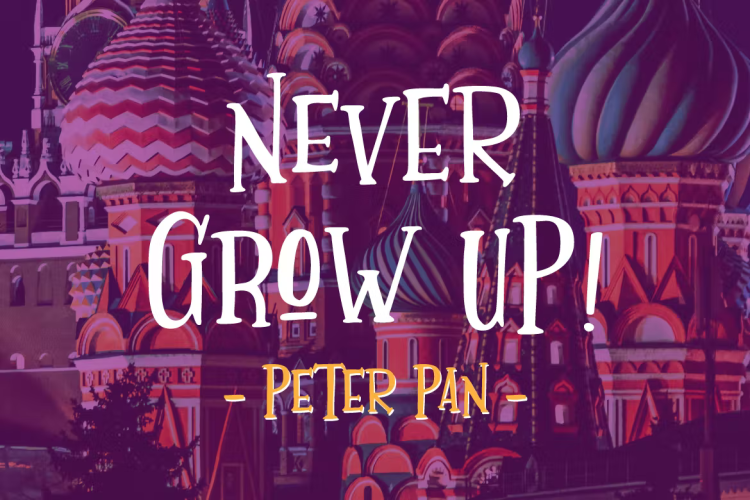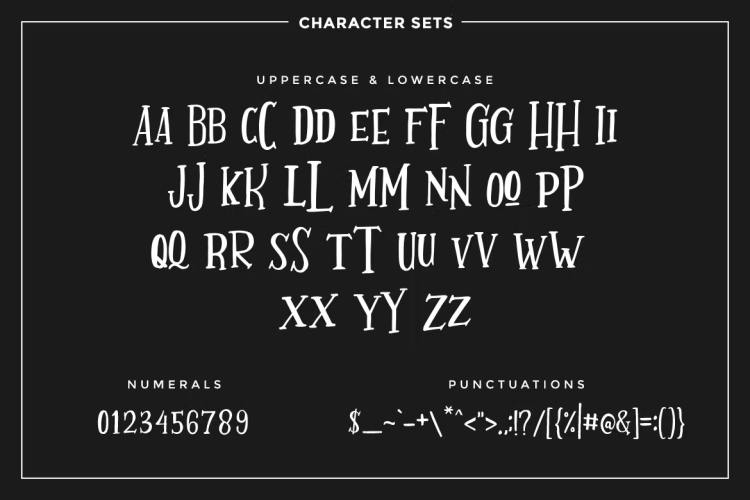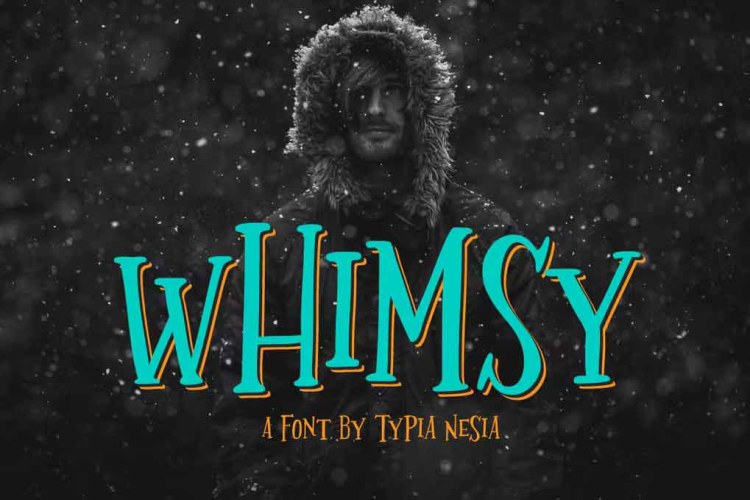
Whimsy Font
Whimsy is a handmade fantasy / whimsical display font. It suitable for titling, display, brand, crafting, quote, t-shirt, poster, packaging, book, cover, cards, invitati…
Whimsy is a handmade fantasy / whimsical display font. It suitable for titling, display, brand, crafting, quote, t-shirt, poster, packaging, book, cover, cards, invitation and more.
Where Whimsy Font works best
Whimsy Font gives long-form text a classic, trustworthy rhythm — ideal for magazine spreads, annual reports and book interiors.
Pair Whimsy Font with generous letter-spacing for wordmarks in fashion, hospitality, wine and jewellery branding.
Use Whimsy Font for slide titles in Keynote, PowerPoint or Google Slides to add authority without looking dated.
What is Whimsy Font good for?
Whimsy Font is a Serif Fonts typeface tagged Branding, Display, Handwritten, Packaging. It works well for headlines, logos, posters, social media graphics and branding projects that need a distinctive serif fonts look.